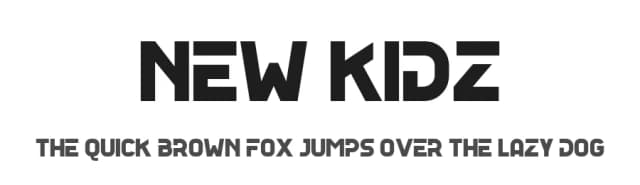
About Xsotik Font
Xsotik Font is a versatile sans-serif font that works for both headings and body text. Pair it with a contrasting serif or slab serif font to add visual interest and a clear distinction between titles and body copy.
Xsotik Font